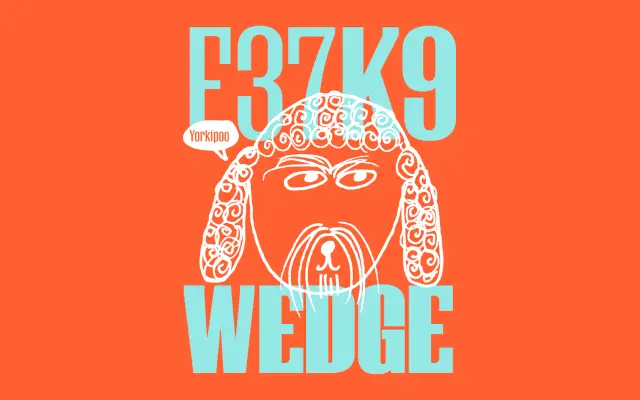
F37 K9 Wedge
The wedge-serif cut of F37 K9, eight styles that sharpen the family into a more glyphic, incised voice for headlines and identity.
F37 K9 Wedge tapers the K9 family's serifs into wedges for a sharper, more incised character. The cut shares the K9 skeleton with K9 Slab and K9 Soft, so the three can work together inside one identity, and runs across Light to Bold with matching italics. F37 pair it with F37 Tinker, F37 Sonic and F37 Caslon, making it useful where you want serif structure with a confident, slightly editorial bite.
Wedge-serifed cut within the F37 K9 family. Where K9 Slab uses rectangular slabs and K9 Soft rounds them, K9 Wedge tapers the terminations into triangular wedges, giving the family a sharper, more incised cut.